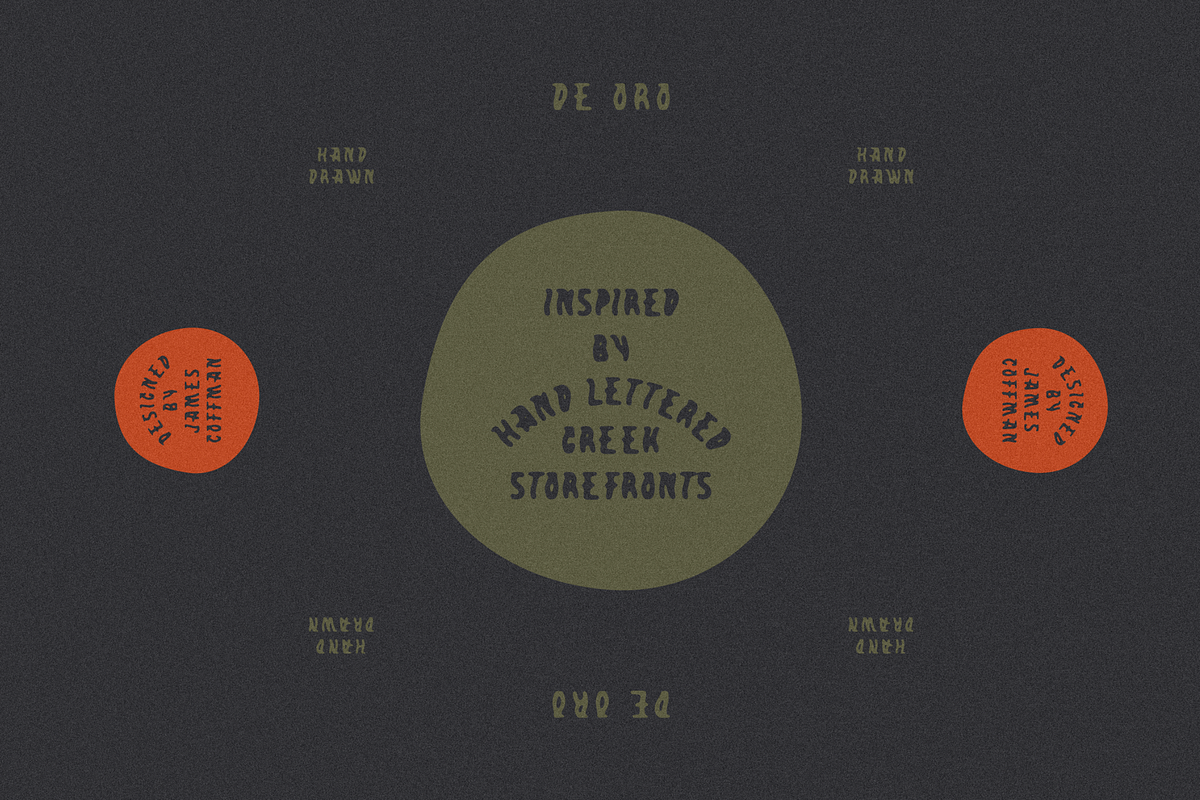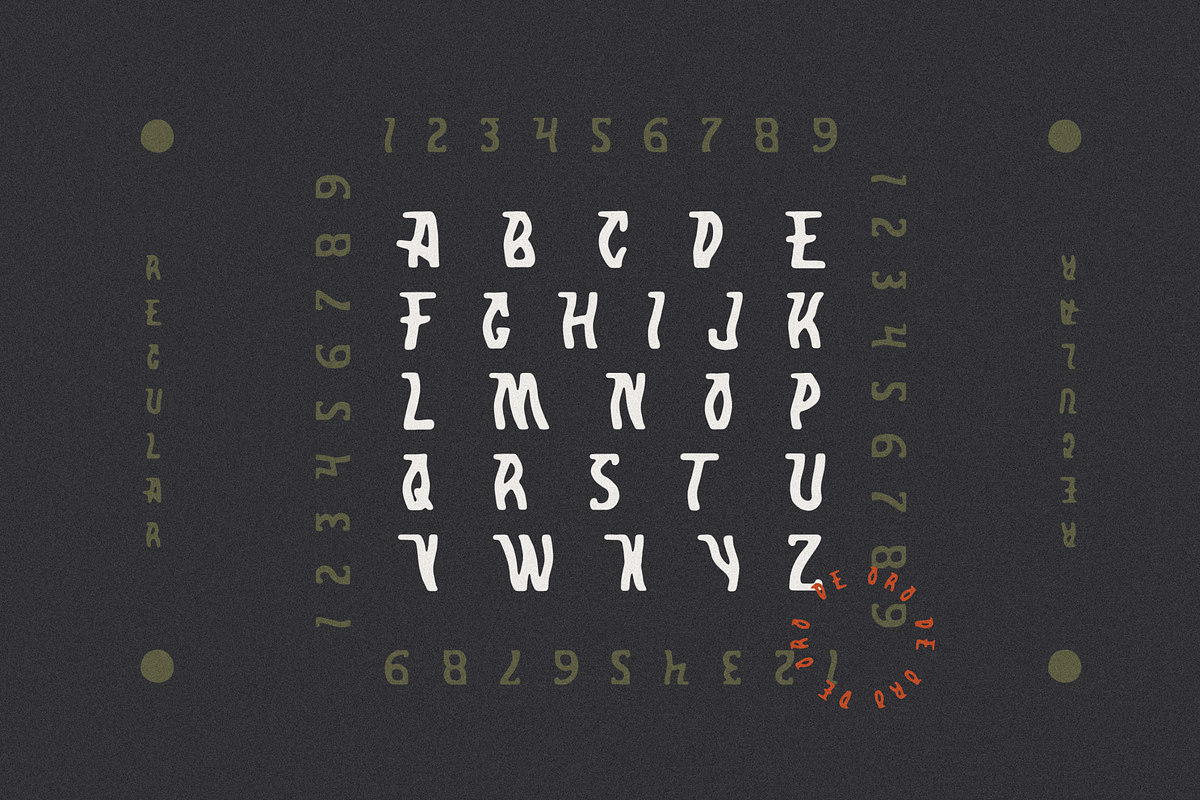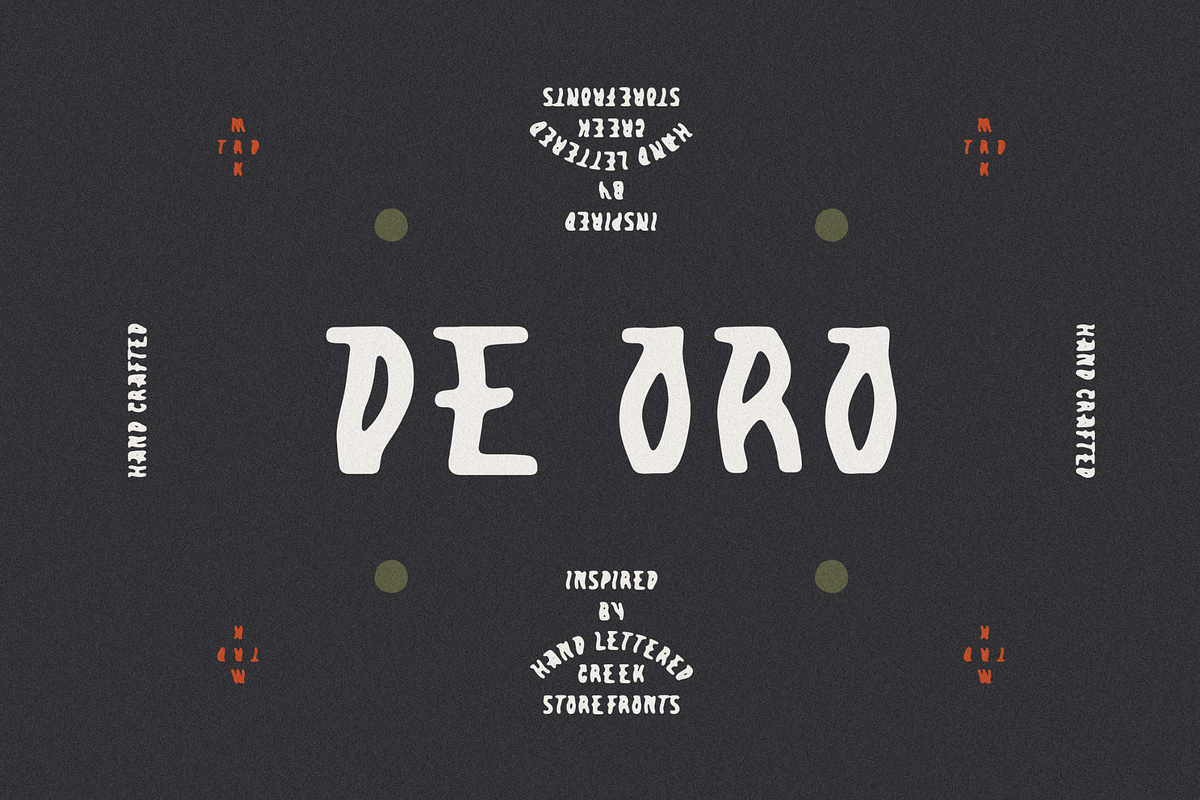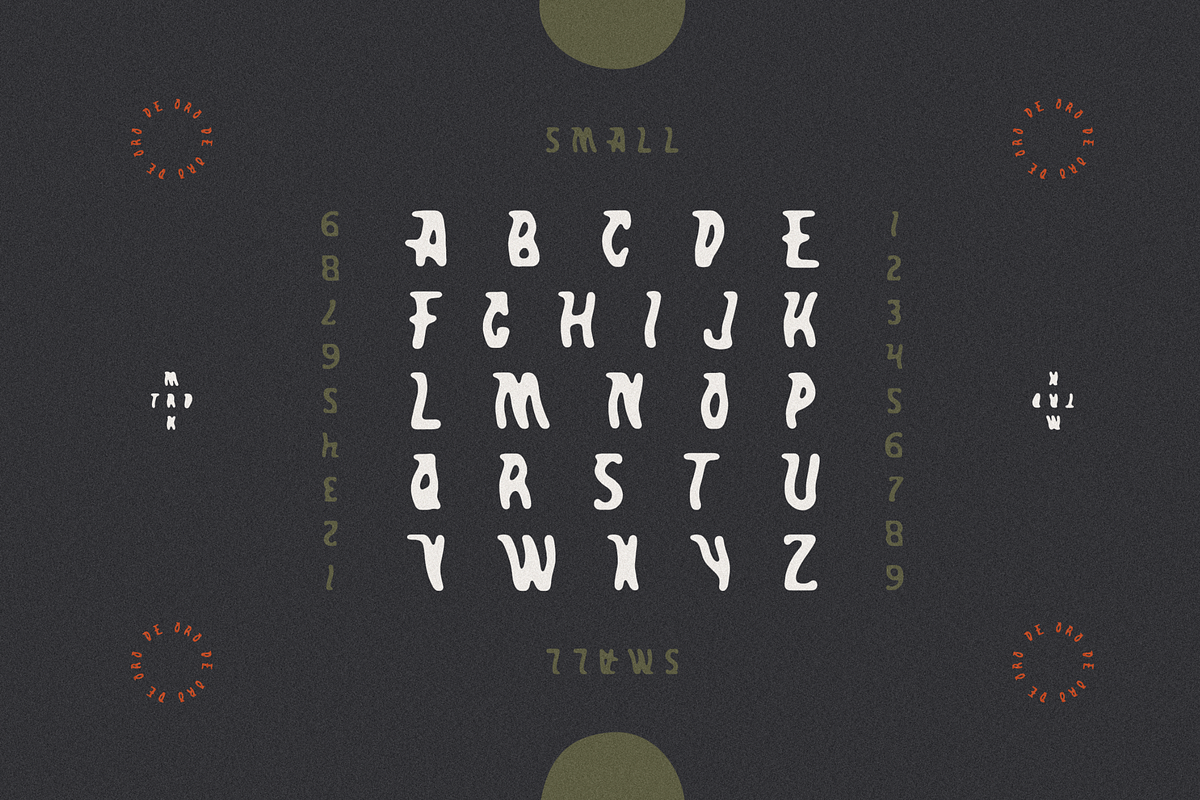
De Oro
A hand-drawn typeface full of character. Inspired by a painted storefront sign in a small Greek village. Created with two weights, regular and small. Using these together gives a broader range and mimics old metal type rounding out and losing detail at smaller scales.